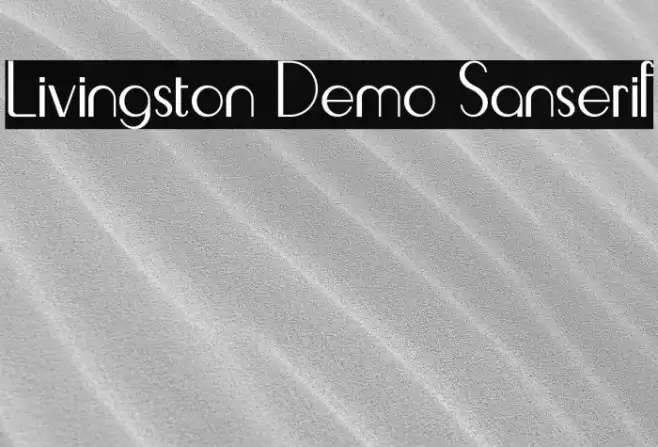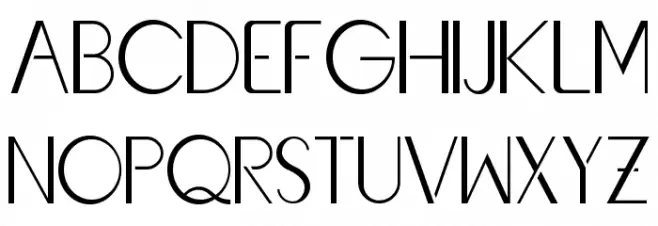
Livingston Demo Sanserif Font
Livingston Demo Sanserif Description
This font features a clean and modern sans-serif style with a geometric influence. The uppercase letters are tall and elegant, with a consistent stroke width that gives them a sleek appearance. The lowercase letters maintain a similar geometric style, with rounded edges that add a touch of softness to the overall design. The numbers are clear and easy to read, making them suitable for various applications. Special characters are included, matching the overall aesthetic with a modern twist. The font's simplicity and clarity make it versatile for both digital and print media.
A modern, geometric sans-serif font with clean lines and a sleek appearance from Regular fonts.
- Font: Livingston Demo Sanserif
- Proposed Projects: Ideal for branding, advertising, web design, and editorial layouts due to its modern and clean aesthetic.